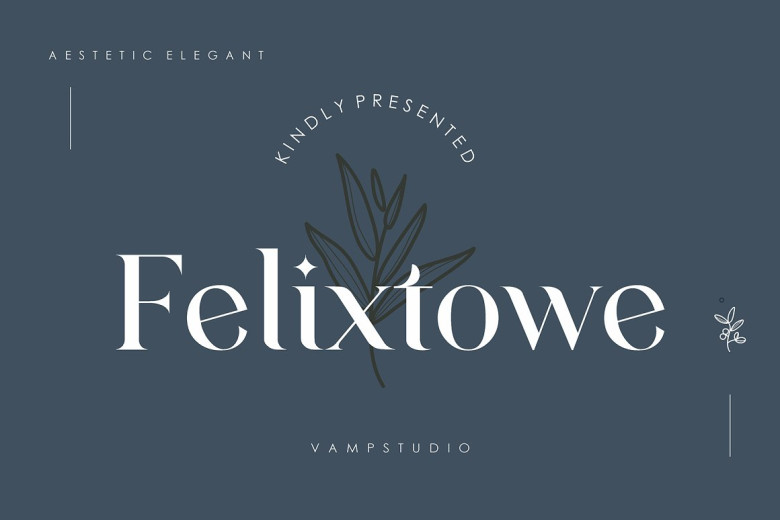
Felixtowe Font
Felixtowe features a serif font that is elegant, simple, and clean – created by skilled hands to meet all of your large project requirements.
Felixtowe is ideal for branding projects such as logos, wedding designs and social media posts. Additionally, it can also be used for product packaging design, label printing and photography, watermarks for photography as well as invitations/stationery that require handwritten writing.
Felixtowe Serif Font